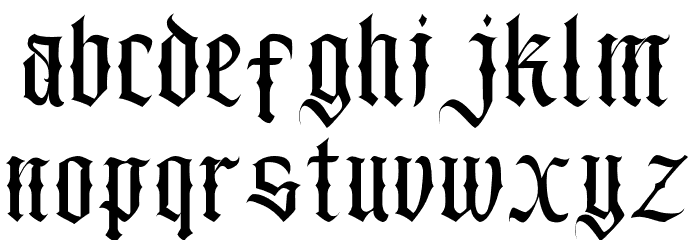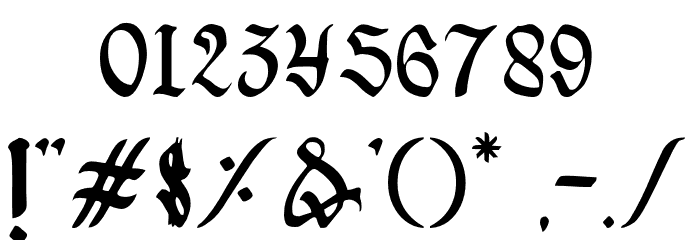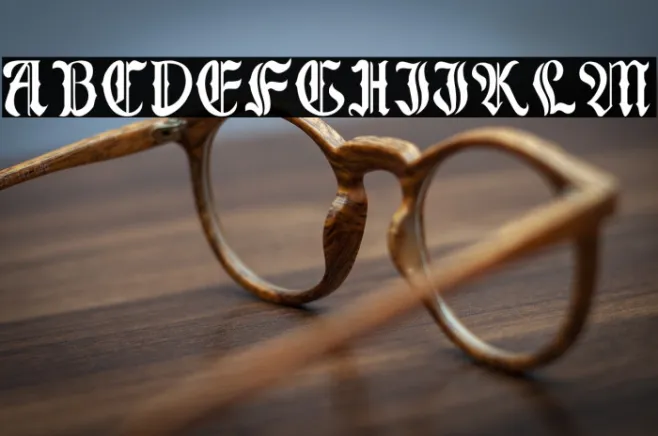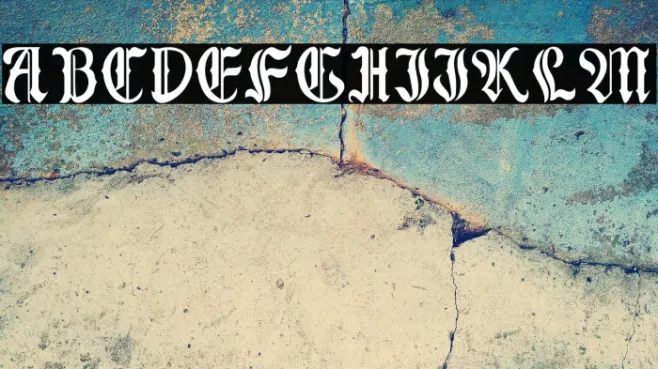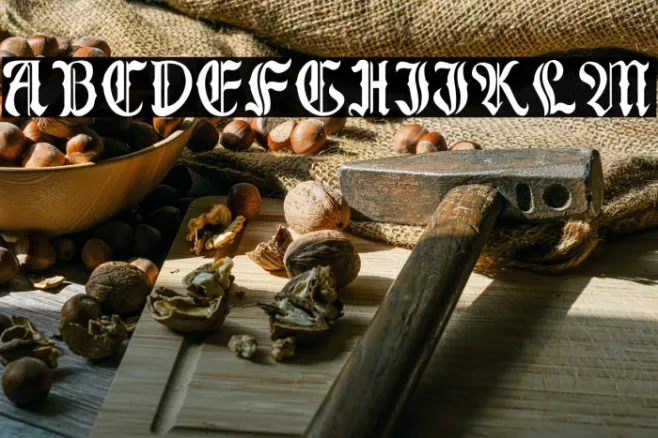
Blackburr Font
This font features a bold and dramatic style, reminiscent of traditional Gothic or Blackletter typefaces. The characters are characterized by their sharp, angular lines and intricate detailing, giving them a sense of historical elegance and formality. The uppercase letters are particularly ornate, with elaborate flourishes that enhance their visual impact. The lowercase letters maintain a consistent style, with a slightly more subdued design that complements the uppercase set. Numbers and special characters follow the same aesthetic, ensuring a cohesive look across all text elements. This font's distinct appearance makes it ideal for projects that require a touch of classic sophistication and a strong visual presence.
A bold, Gothic-style font with intricate, angular detailing.
- Font: Blackburr
- Proposed Projects: Ideal for historical documents, event invitations, branding for luxury products, or any design requiring a classic, dramatic flair.
- Category: Blackletter
- Overall Style: Vintage